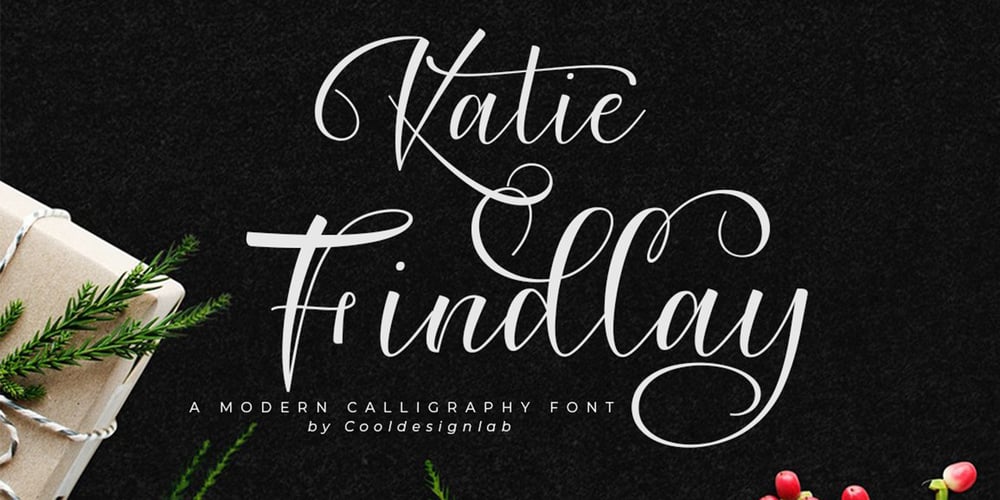
Katie Findlay Script
Katie Findlay Script font
Katie Findlay Script Font Family was designed by Kurniadi Saputra and published by Cooldesignlab. Katie Findlay Script contains 1 styles and family package options. Katie Findlay Script – a modern calligraphy font that is very skilfully and meticulously designed. It is suitable for greeting cards, branding materials, business cards, quotes, posters, and more!Katie Findlay script includes a complete set of large international letters, numbers, punctuation and binders. All lowercase letters include the beginning and end strokes. Also, alternate uppercase letters and multilingual symbols. The script is coded with Unicode PUA, which allows full access to all additional characters without special design software.Mac users can use Letter Book, and Windows users can use Character Maps to view and copy additional characters to be included in your favorite text editor / application.Thank you and have a nice day.